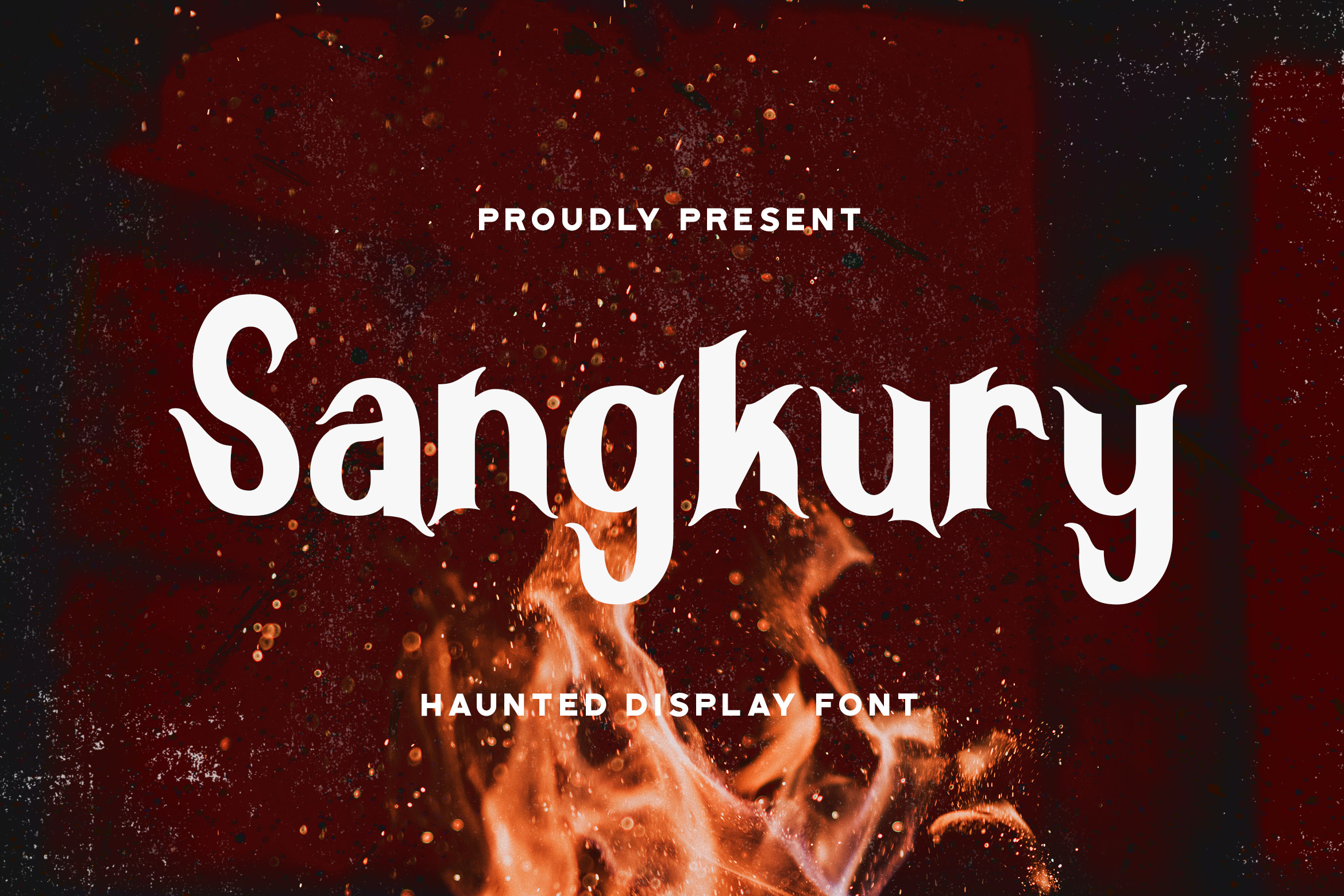
Sangkury - Haunted Display Font
Introducing Sangkury - Haunted Display Font
The Sangkury is a horror font. It can be used for every horror design such as: Halloween, dark clothing, horror movie posters, and every other design that needs a dark feel. An unusual, cartoon style font, ideal for haunted houses and spooky occasions. This decorative font is appealing and fun, and is bold enough to be used as a display font.